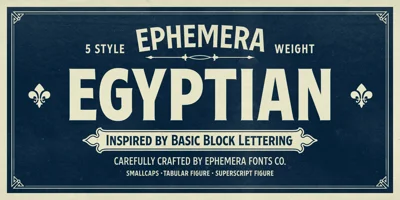
Ephemera Egyptian Font
Ephemera Egyptian Font is perfect for vintage poster designs, retro advertising campaigns, nostalgic brand identities, antique shop signage, historical museum materials, classic book covers, heritage tourism promotions, and old-world craft branding. This distinctive typeface brings authentic Victorian elegance and timeless sophistication to any design project celebrating historical heritage and traditional craftsmanship.
What makes Ephemera Egyptian Font exciting is its masterful recreation of 19th-century slab serif typography that perfectly captures the bold confidence and industrial optimism of the Victorian era. The robust letterforms feature distinctive thick serifs and strong vertical emphasis that create exceptional impact and readability. Each character embodies the spirit of historical printing craftsmanship, making it ideal for brands that celebrate tradition, authenticity, and enduring quality.
The Ephemera Egyptian Font family typically includes regular and bold weights with complete uppercase and lowercase letters, numbers, punctuation marks, and period-appropriate special characters. Many versions feature additional vintage decorative elements, ornamental borders, and historical symbols that enhance the antique aesthetic and provide creative flexibility for heritage-themed design applications.
Whether you're developing vintage-inspired brand identities or creating historical exhibition materials, Ephemera Egyptian Font offers unmatched authenticity and period charm. This distinguished typography choice transforms modern designs into timeless pieces that resonate with audiences appreciating classical elegance and historical significance. The font's exceptional durability ensures perfect performance across various traditional applications while maintaining its distinctive Victorian character that makes every design project feel like a precious artifact from typography's golden age.